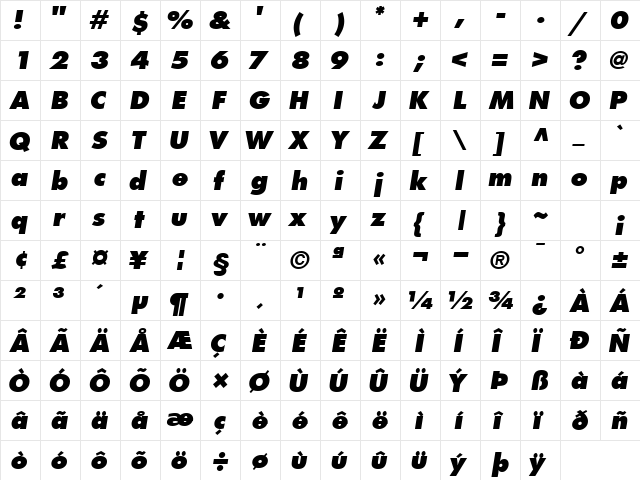
KudosBlackSSK BoldItalic Font Preview
Design Context for KudosBlackSSK Typeface
KudosBlackSSK offers clean, dependable letterforms without strong stylistic allegiance, making it a practical choice for designers who need flexibility. The dynamic lean of this cut emphasises speed and emphasis in any layout. Its bold stroke weight gives it real presence on the page.
Pro Tip: Try KudosBlackSSK for annotation and caption copy alongside an upright companion — the contrast in angle creates a dynamic but ordered typographic system.